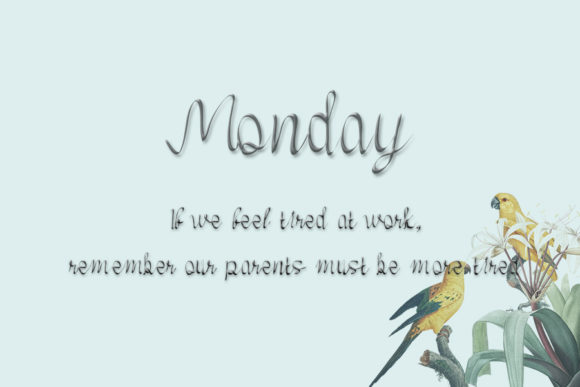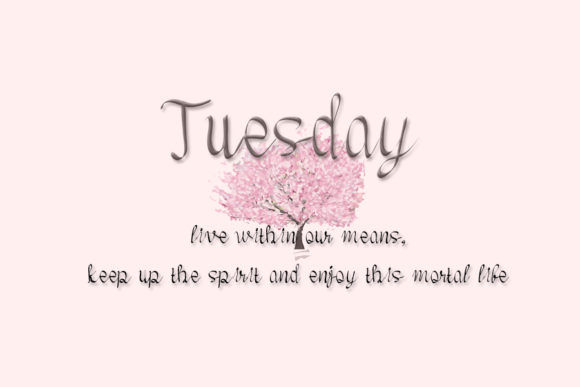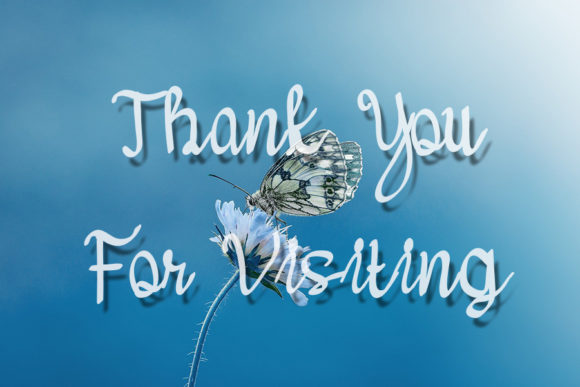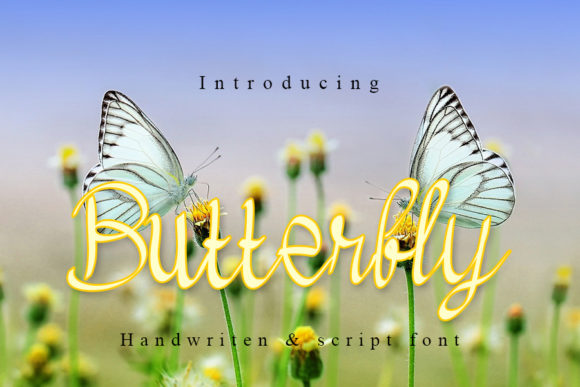
Introducing Butterfly Font: Embodying the Elegance of Nature
Are you searching for a typeface that captures the essence of fluid movement and artistic expression? Look no further than Butterfly, a creative italic handwritten font that embodies the carefree spirit of nature. With its rapid, expressive lean and loopy, artistic descenders, Butterfly is the perfect choice for designers and crafters seeking to add a touch of whimsy and elegance to their projects.
The Inspiration Behind Butterfly Font
The Butterfly font is inspired by the mesmerizing flight of butterflies, with their irregular yet harmonious movements. The font’s creator aimed to capture the dynamic, rhythmic quality of a butterfly in flight, resulting in a typeface that exudes a sense of freedom and creativity. Each letter is carefully crafted to convey a sense of fluid motion, as if the words themselves are dancing across the page.
Key Features of Butterfly Font
• Rapid, Expressive Lean: Butterfly font features a distinctive lean that gives it a sense of dynamism and energy. This characteristic makes it perfect for designs that require a touch of playfulness and movement.
• Loopy, Artistic Descenders: The font’s descenders are long and looping, adding a touch of artistic flair to any design. This feature is particularly useful for creating visually appealing typography that stands out from the crowd.
• Feminine and Whimsical: Butterfly font has a distinctly feminine and whimsical feel, making it ideal for designs that require a touch of elegance and sophistication.
Use Cases for Butterfly Font
Butterfly font is an incredibly versatile typeface that can be used in a wide range of design projects. Here are some of the most popular use cases:
• Boutique Branding: Butterfly font is perfect for boutique brands that require a unique and elegant typeface to represent their business.
• Feminine Logos: The font’s feminine and whimsical feel makes it an excellent choice for logos that require a touch of sophistication and elegance.
• Personalized Stationery: Butterfly font is ideal for creating personalized stationery, such as wedding invitations, greeting cards, and letterheads.
• Whimsical Social Media Quotes: The font’s playful and artistic feel makes it perfect for creating visually appealing social media quotes that stand out from the crowd.
Why Choose Butterfly Font?
Butterfly font offers a unique combination of elegance, whimsy, and professionalism that makes it an excellent choice for designers and crafters. Here are some reasons why you should consider using Butterfly font in your next project:
• Rhythmic and High-Energy Aesthetic: Butterfly font has a rhythmic and high-energy aesthetic that feels both deeply personal and professionally curated.
• Unique and Memorable: The font’s distinctive lean and looping descenders make it a unique and memorable typeface that will help your designs stand out from the crowd.
• Easy to Read: Despite its artistic and whimsical feel, Butterfly font is easy to read and understand, making it perfect for body text and headlines.
In conclusion, Butterfly font is a creative and elegant typeface that embodies the fluid movement and artistic expression of nature. With its rapid, expressive lean and loopy, artistic descenders, Butterfly font is perfect for designers and crafters seeking to add a touch of whimsy and elegance to their projects. Whether you’re creating boutique branding, feminine logos, personalized stationery, or whimsical social media quotes, Butterfly font is an excellent choice that will help your designs stand out from the crowd.